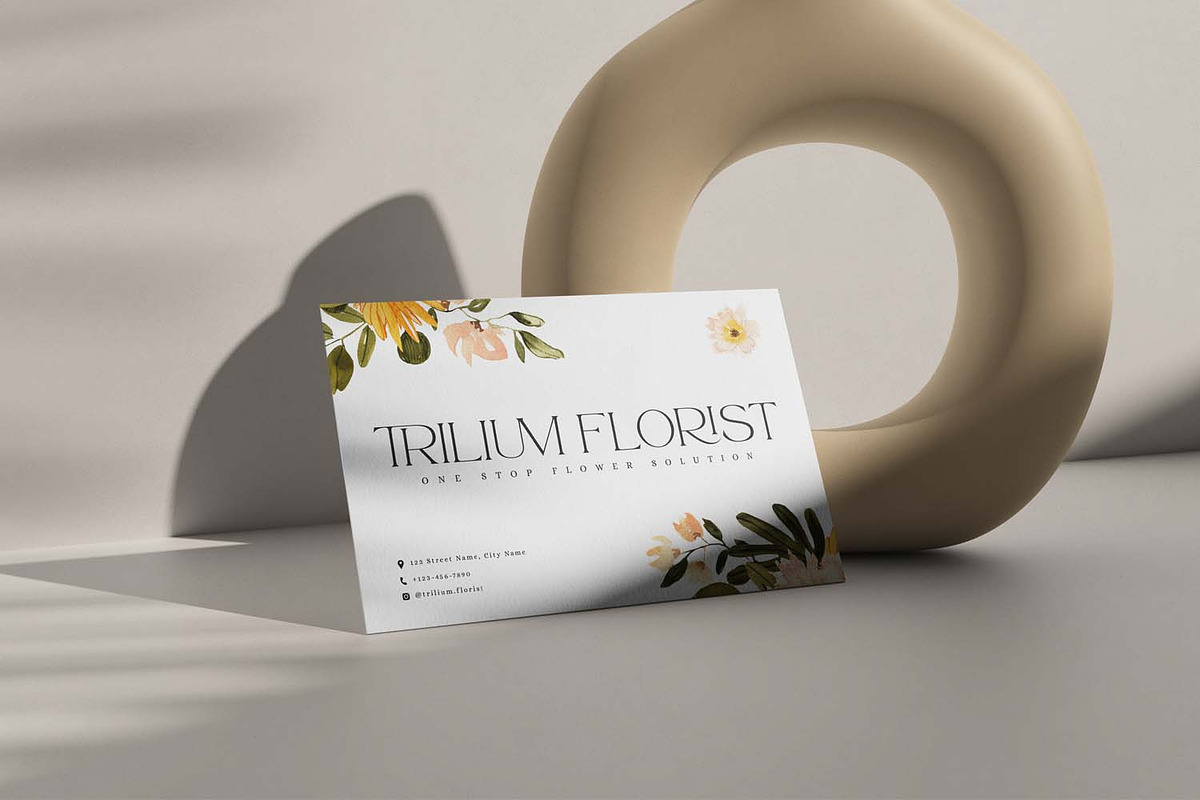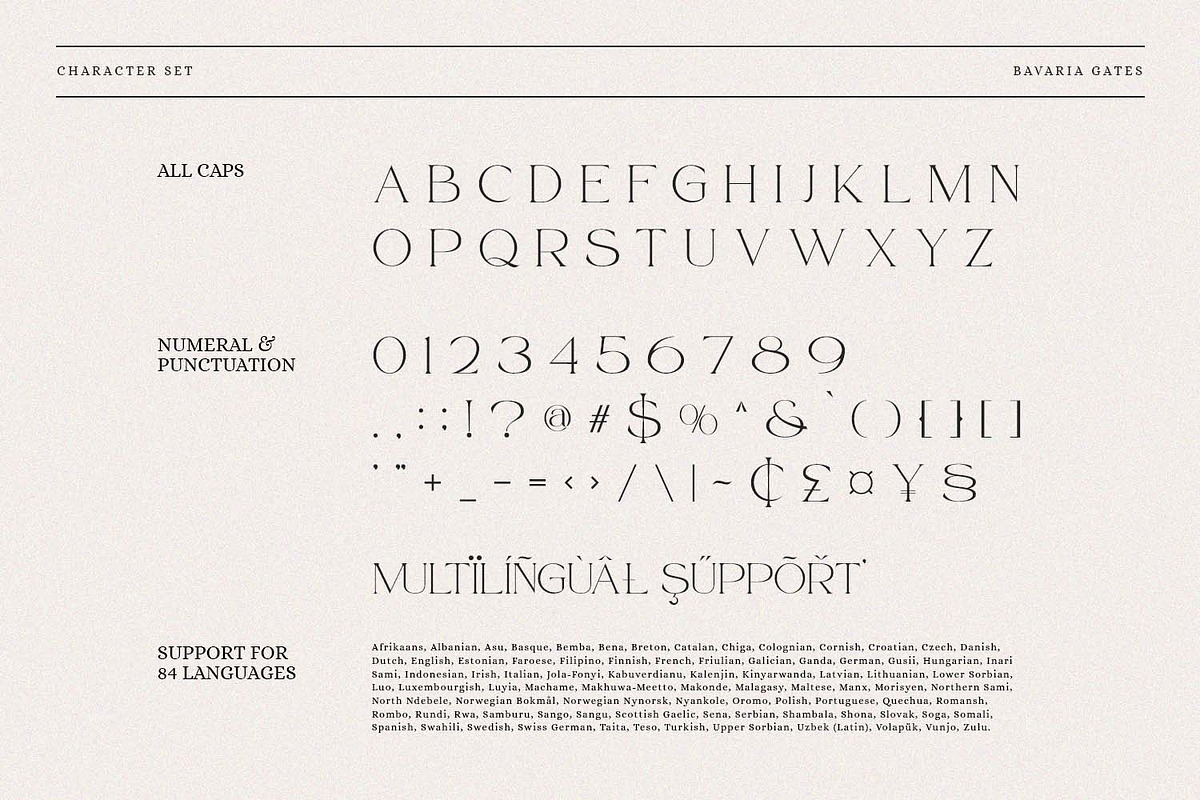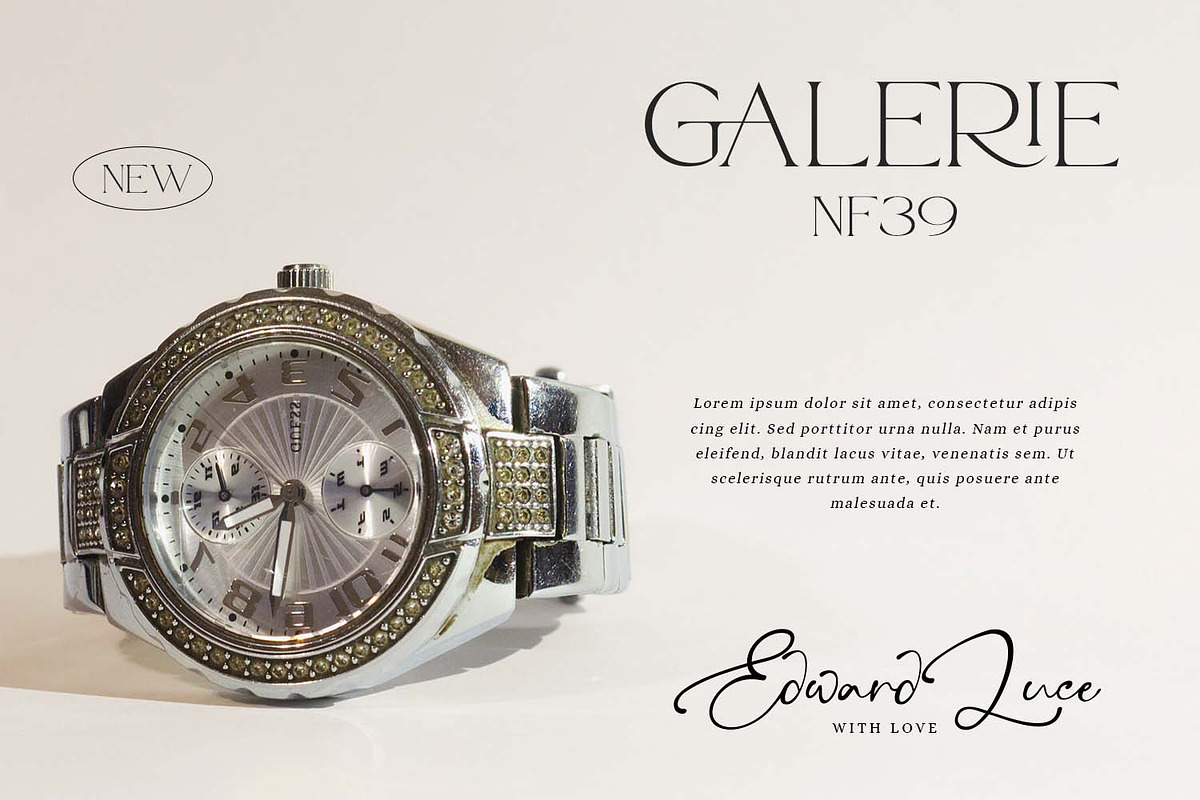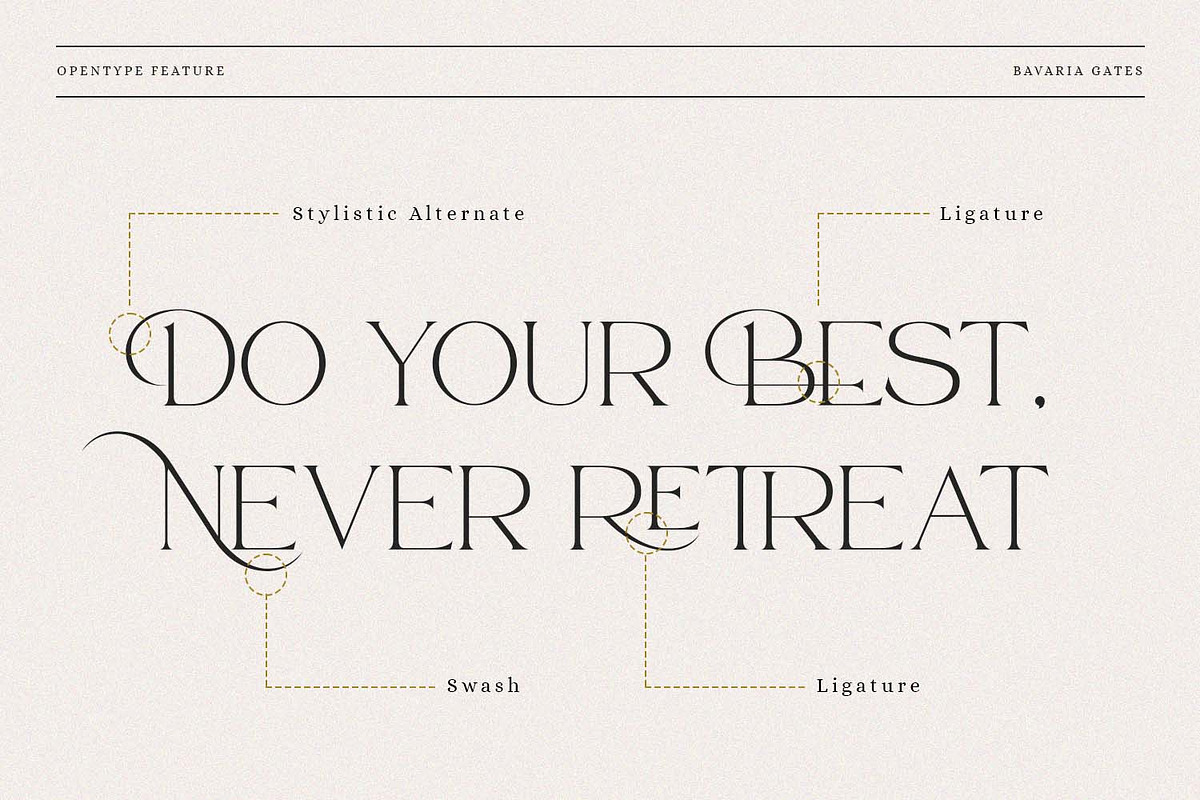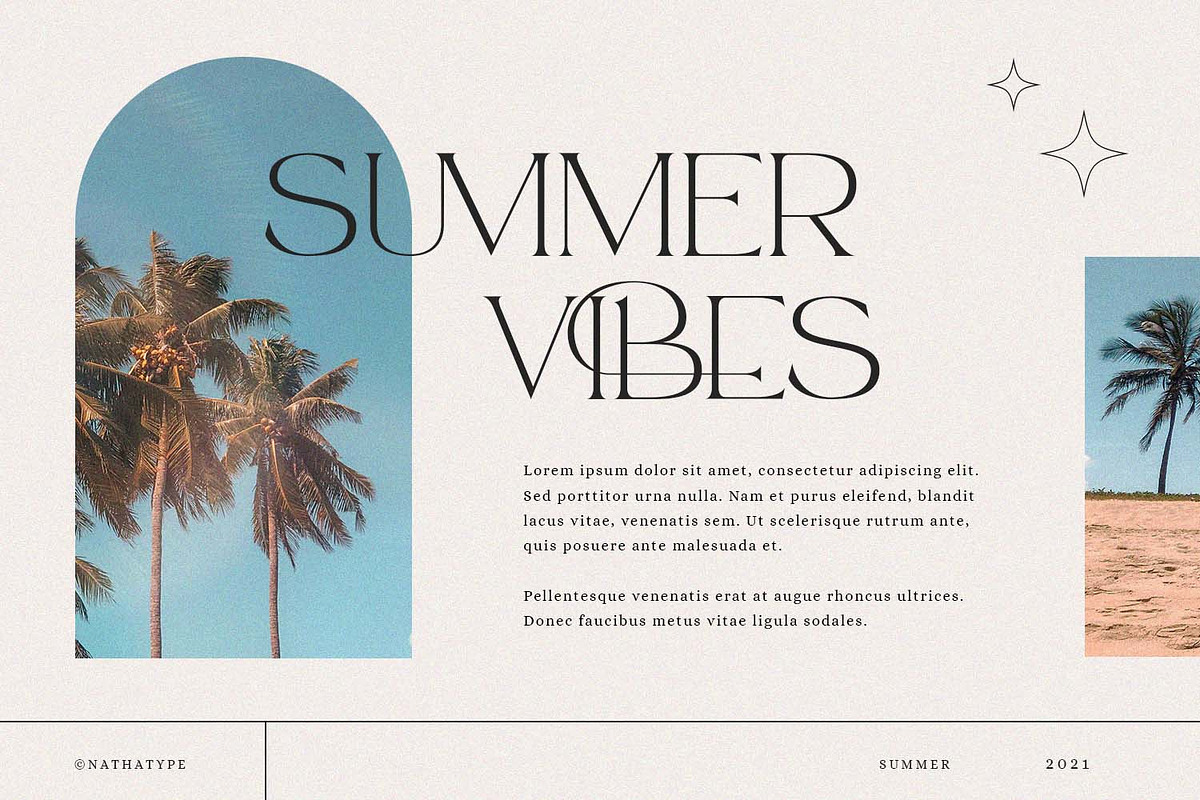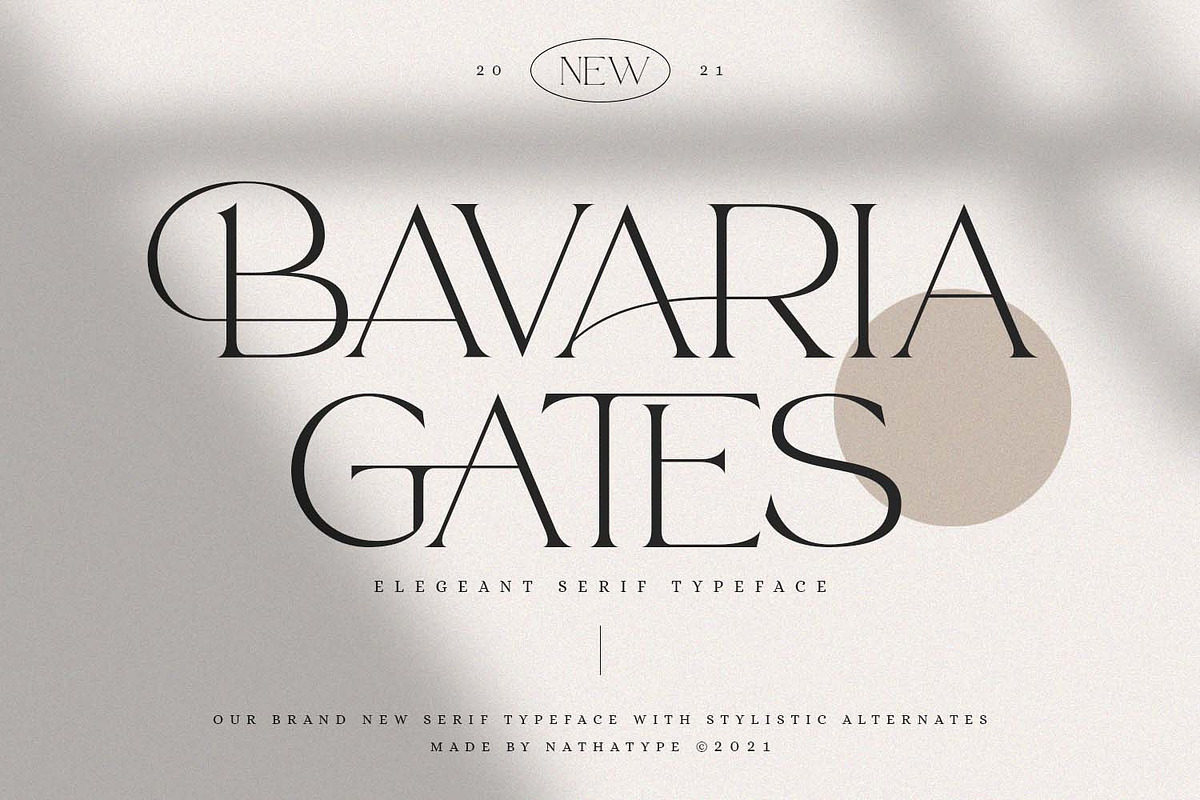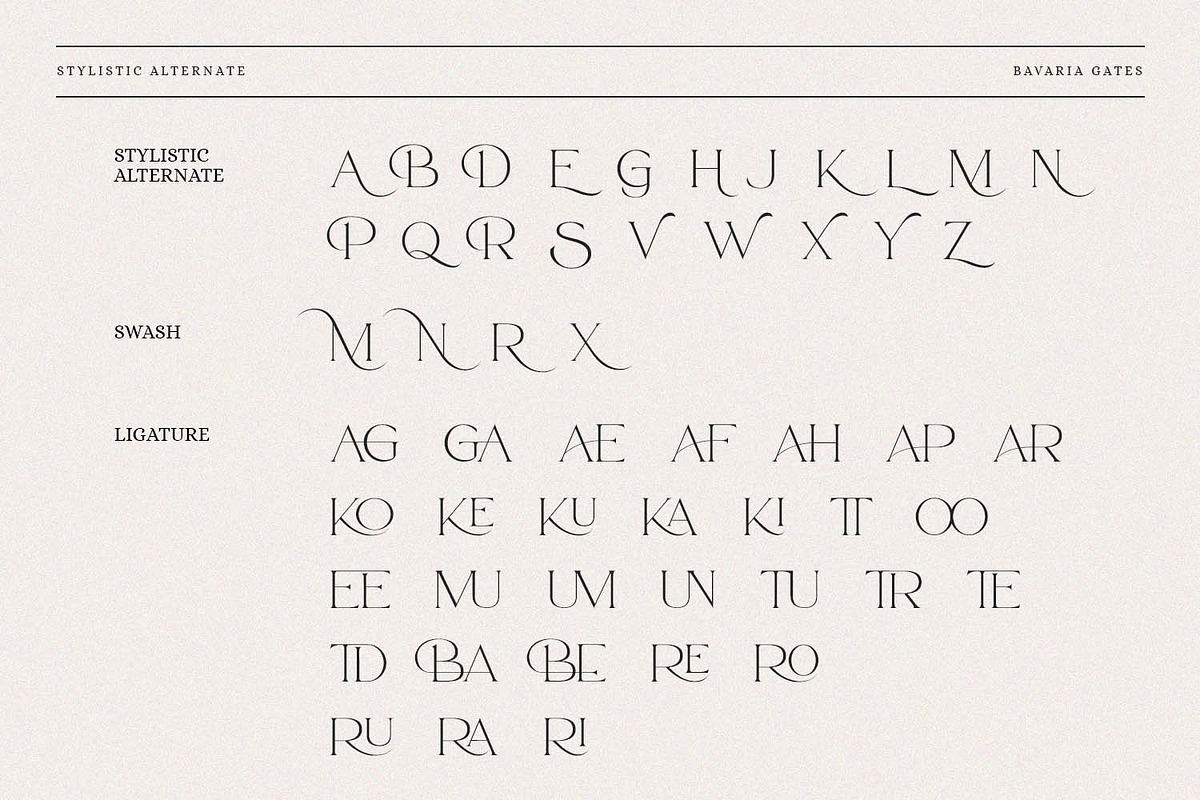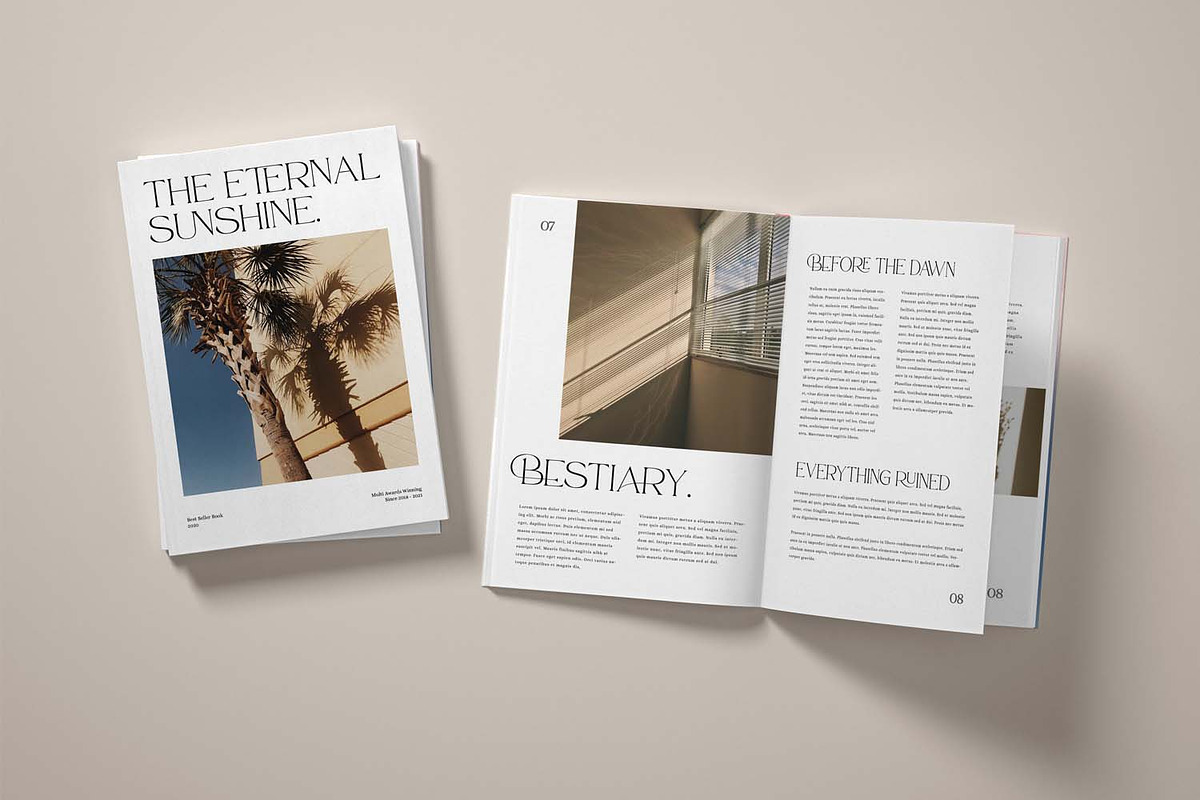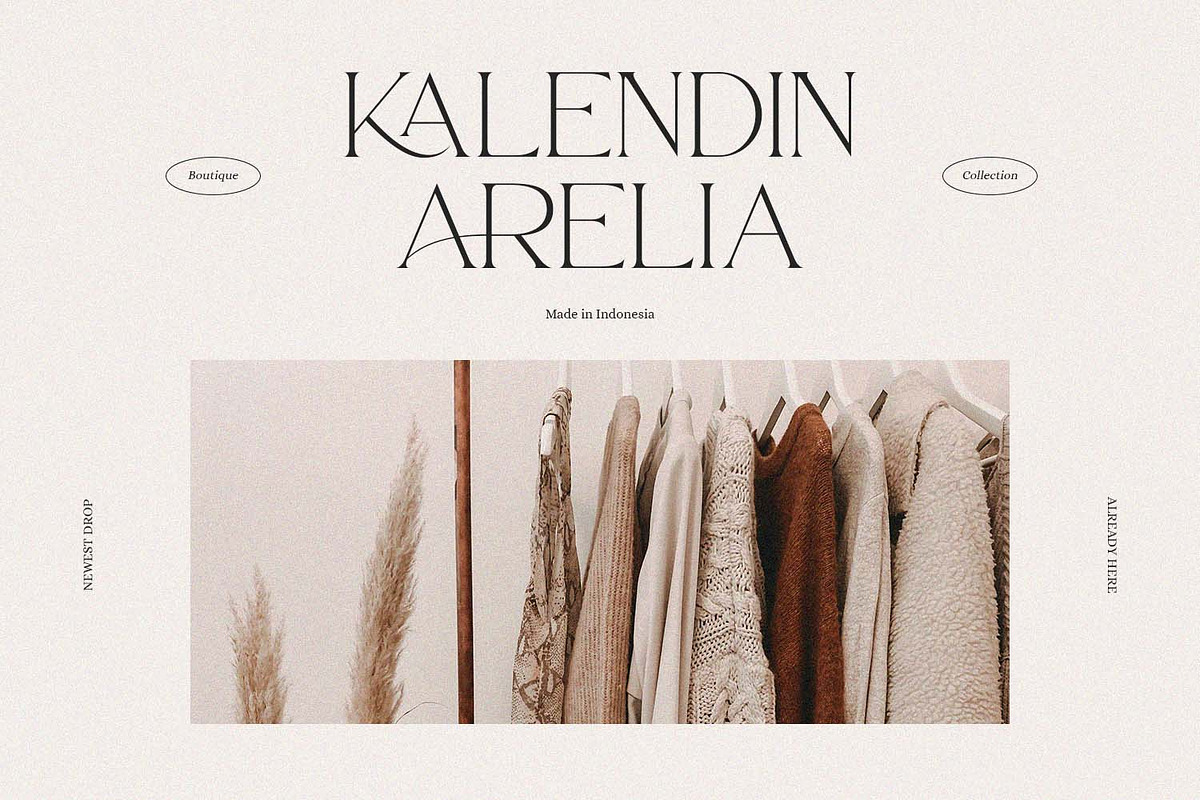
Bavaria Gates Font Family (Updated)
Bavaria Gates-A Serif Font
Bavaria Gates is a serif typeface that is made all characters in uppercase. An excellent choice to add the right amount of modern touch. With style looks very interesting for loads of different projects and promotions. A great all-in-one package for your logo, book cover, poster, t-shirt, branding, and advertisement needs.